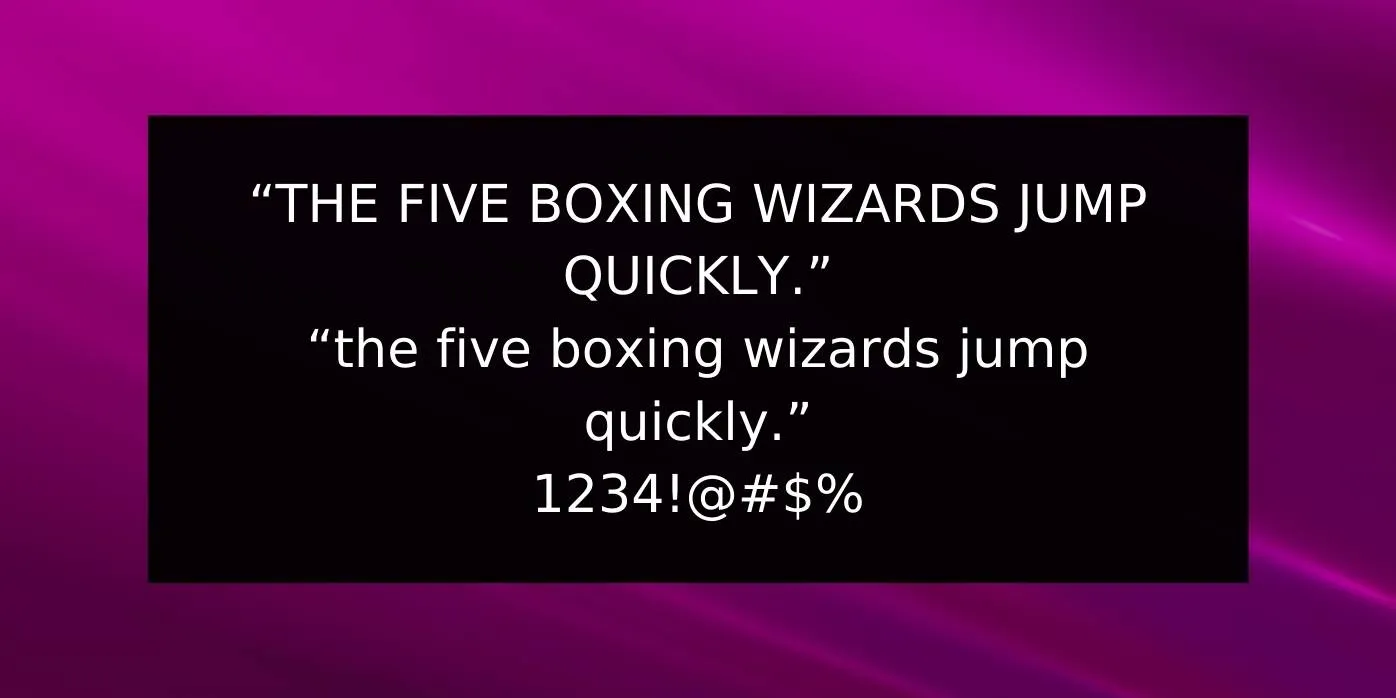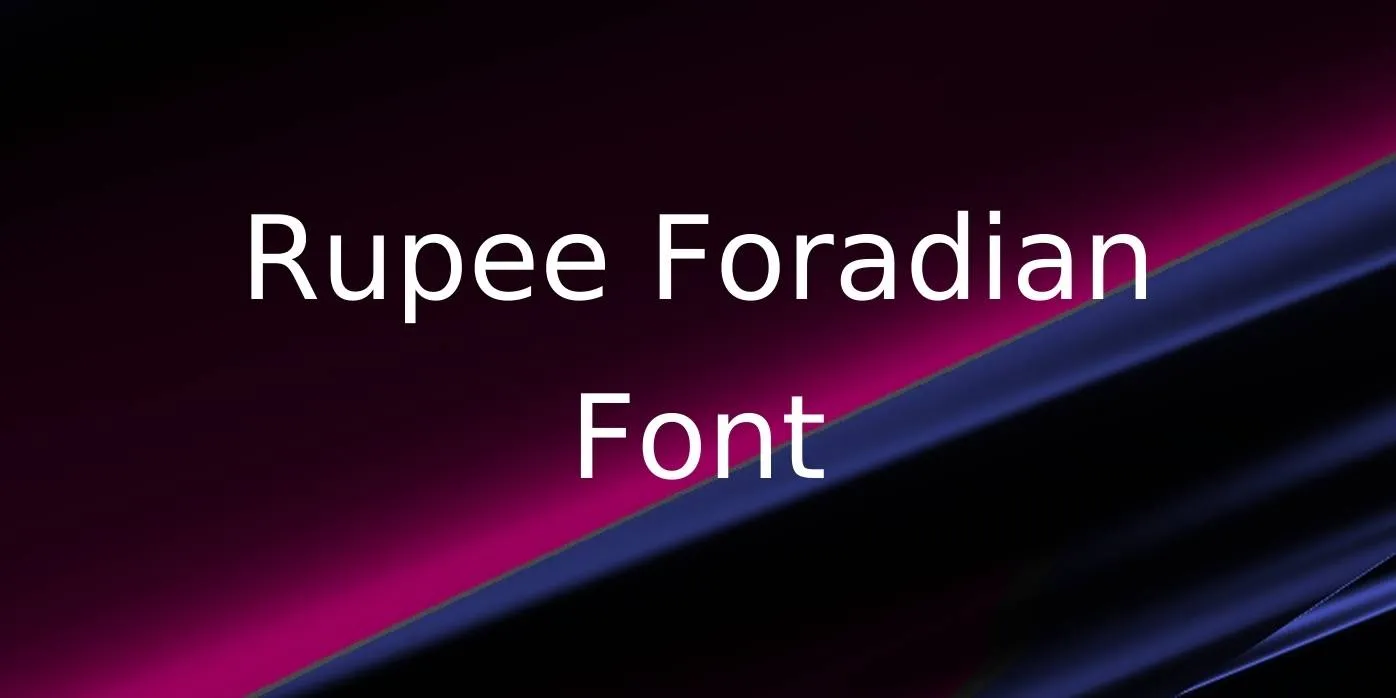
Rupee Foradian Font
Rupee Foradian Font is a sans-serif typeface designed in 2010 by Foradian Technologies. The aim of this typeface is to provide a unique and easily identifiable symbol for the Indian rupee. The Font was created with the help of the Government of India and the Reserve Bank of India. The Font is based on the Devanagari script and includes four different styles: Regular, Bold, Italic, and Bold Italic.